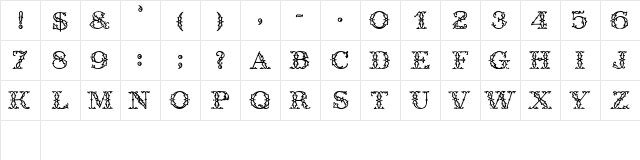
Trellis Display Caps SSi Regular
Design Context for Trellis Display Caps SSi Typeface
Trellis Display Caps SSi brings ornamental detail and strong personality to headlines and identities, where visual impact matters more than quiet functionality.
Font Pairing: Pair with a clean neutral sans-serif for body copy to let Trellis Display Caps SSi's character lead without overwhelming the composition.
Pro Tip: Treat Trellis Display Caps SSi as the centrepiece of your typographic hierarchy. One strong heading set in a decorative face can carry an entire layout.